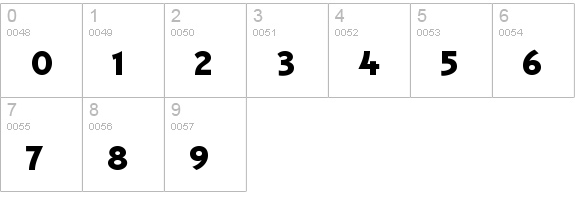
TriplexExtraboldLining Font Details
TriplexExtraboldLining font is a masterpiece of typography, designed for those who seek to make a bold statement. With its distinctive and powerful letterforms, this font demands attention and exudes confidence. The TriplexExtraboldLining font is characterized by its thick, strong lines that create a sense of weight and solidity. Each letter is expertly crafted to ensure legibility and impact, making it perfect for headlines, logos, and other eye-catching design elements. This font is not only visually striking, but it also conveys a sense of professionalism and sophistication. It is versatile enough to be used in a variety of design projects, from print materials to digital media. What sets the TriplexExtraboldLining font apart is its availability for free. Yes, you read that right! This incredible font is freely available to download at FontsMarket.com. You don't have to break the bank to access this high-quality typeface – simply visit FontsMarket.com and start using it in your next project. Whether you're a professional designer or a hobbyist, the TriplexExtraboldLining font is sure to enhance your work and captivate your audience. Its bold, commanding presence will make your designs stand out and leave a lasting impression. Don't miss out on the opportunity to elevate your typography game with the TriplexExtraboldLining font. Download it for free today at FontsMarket.com and unleash your creativity like never before.